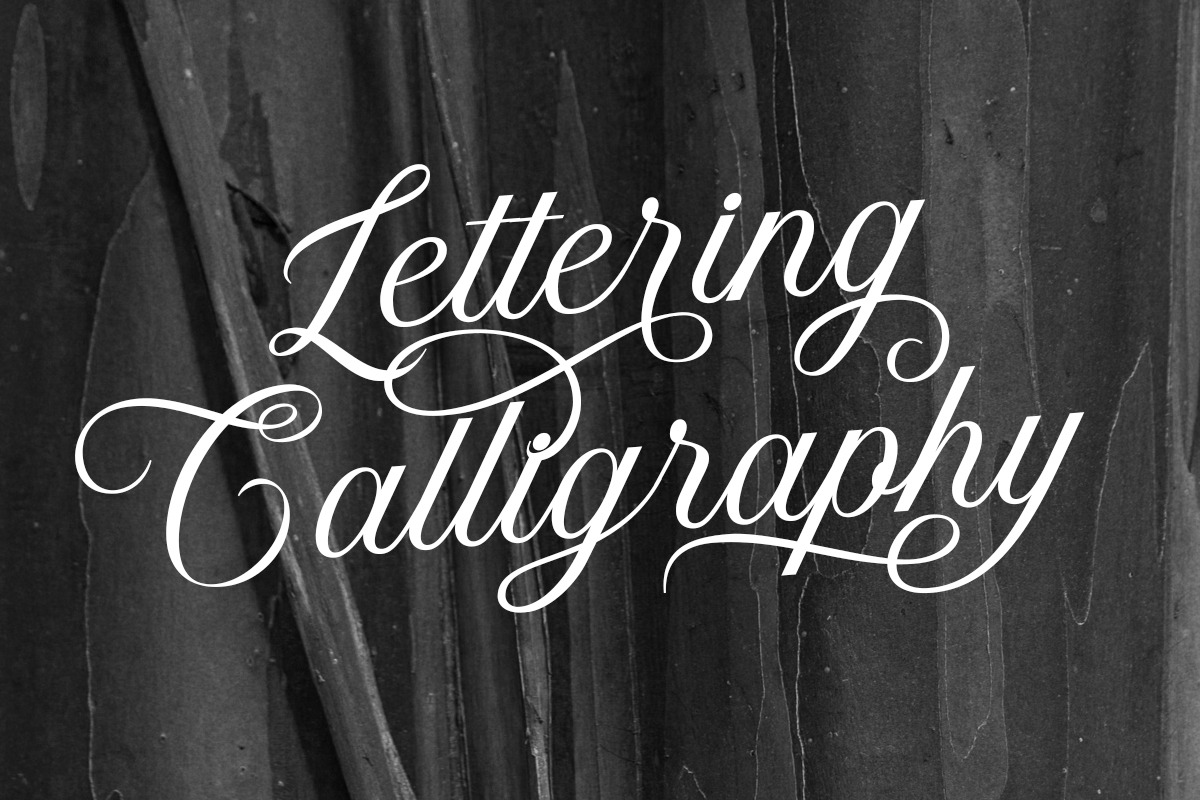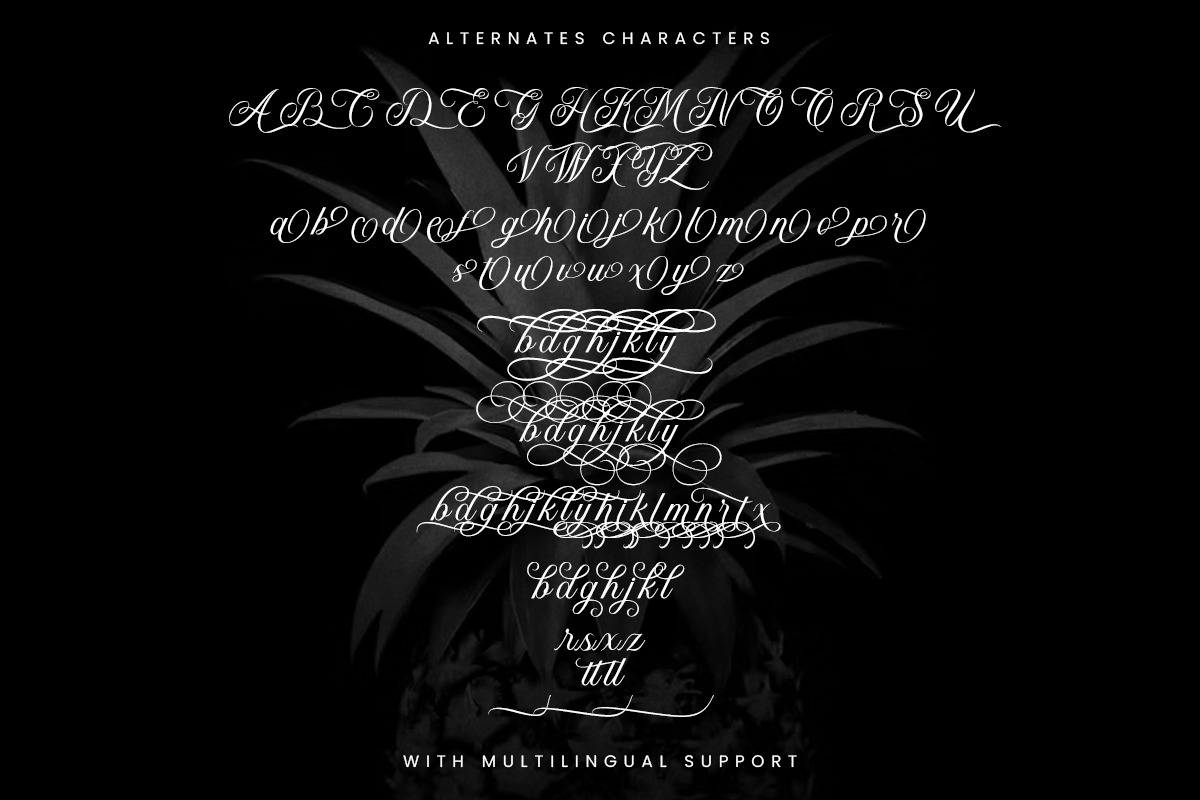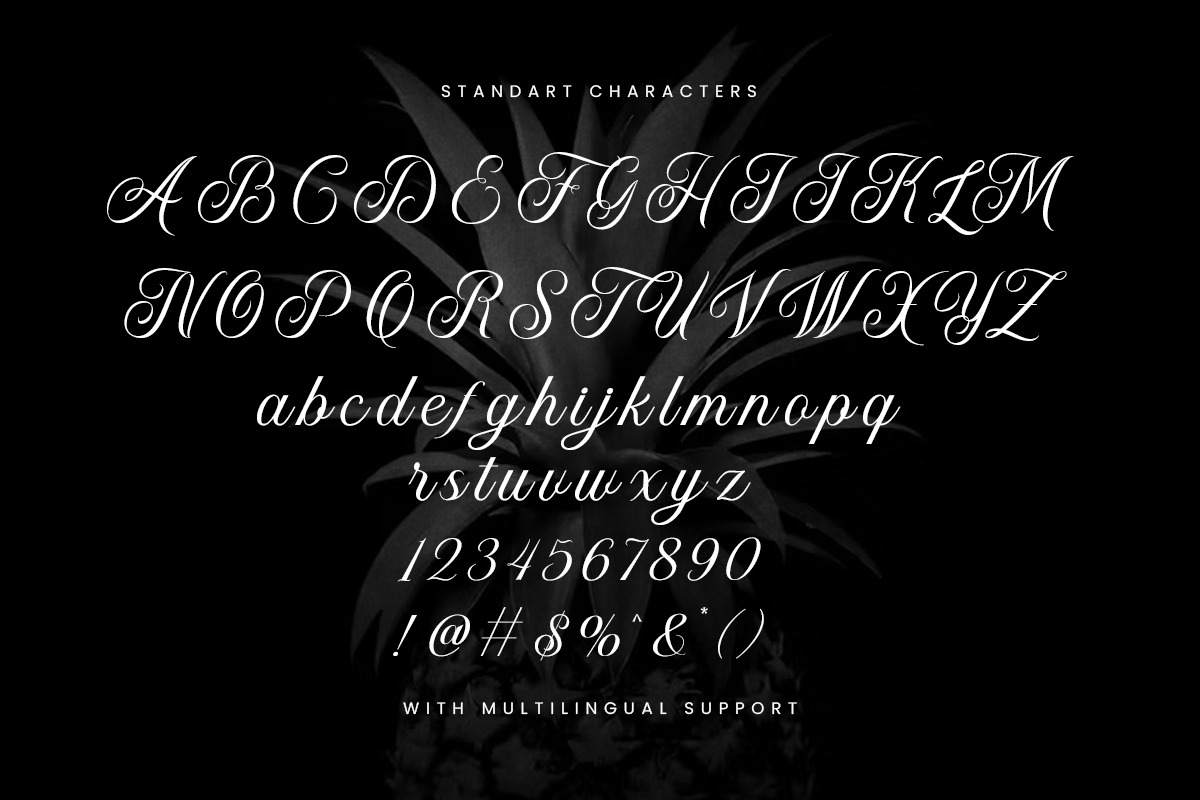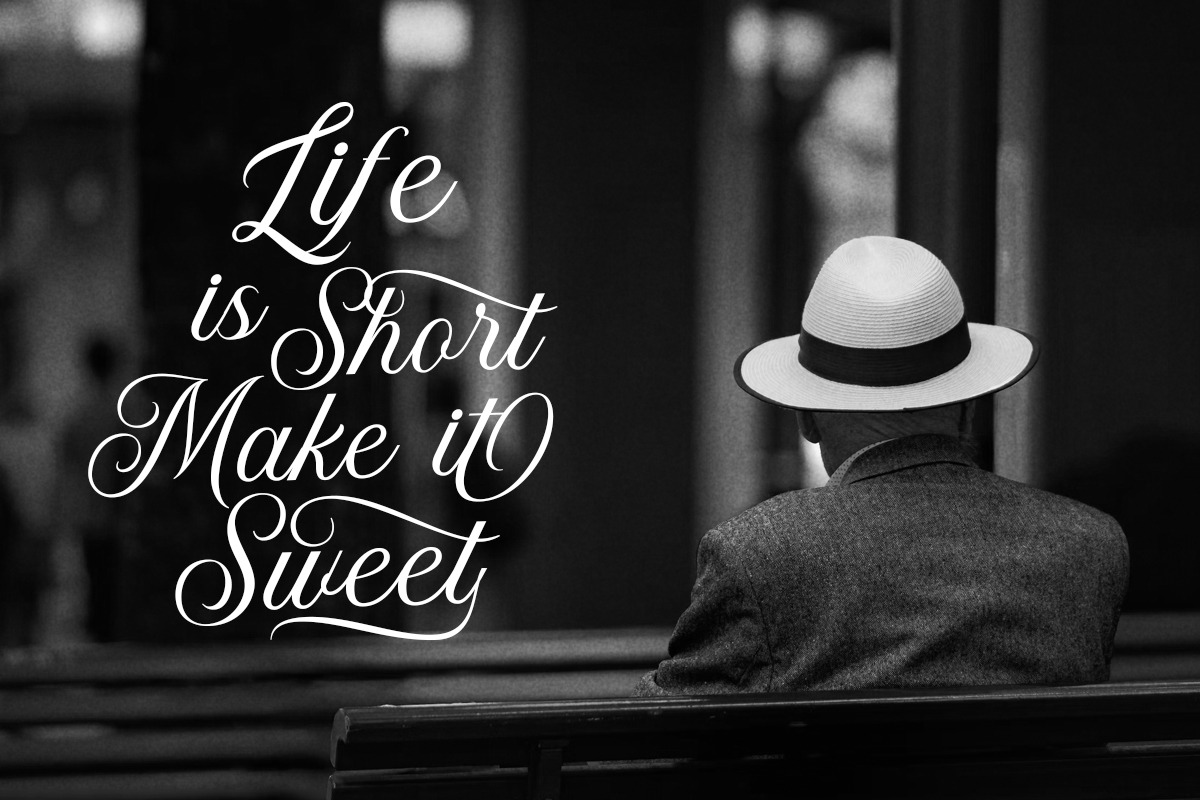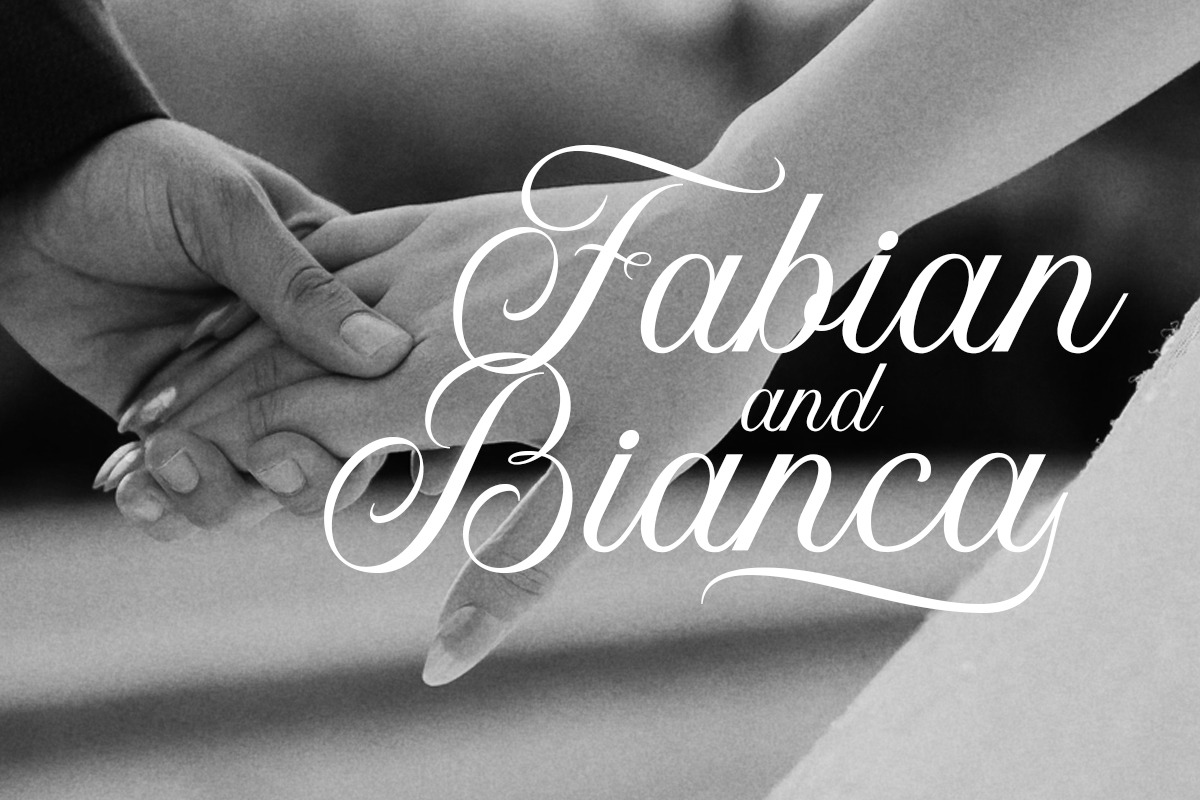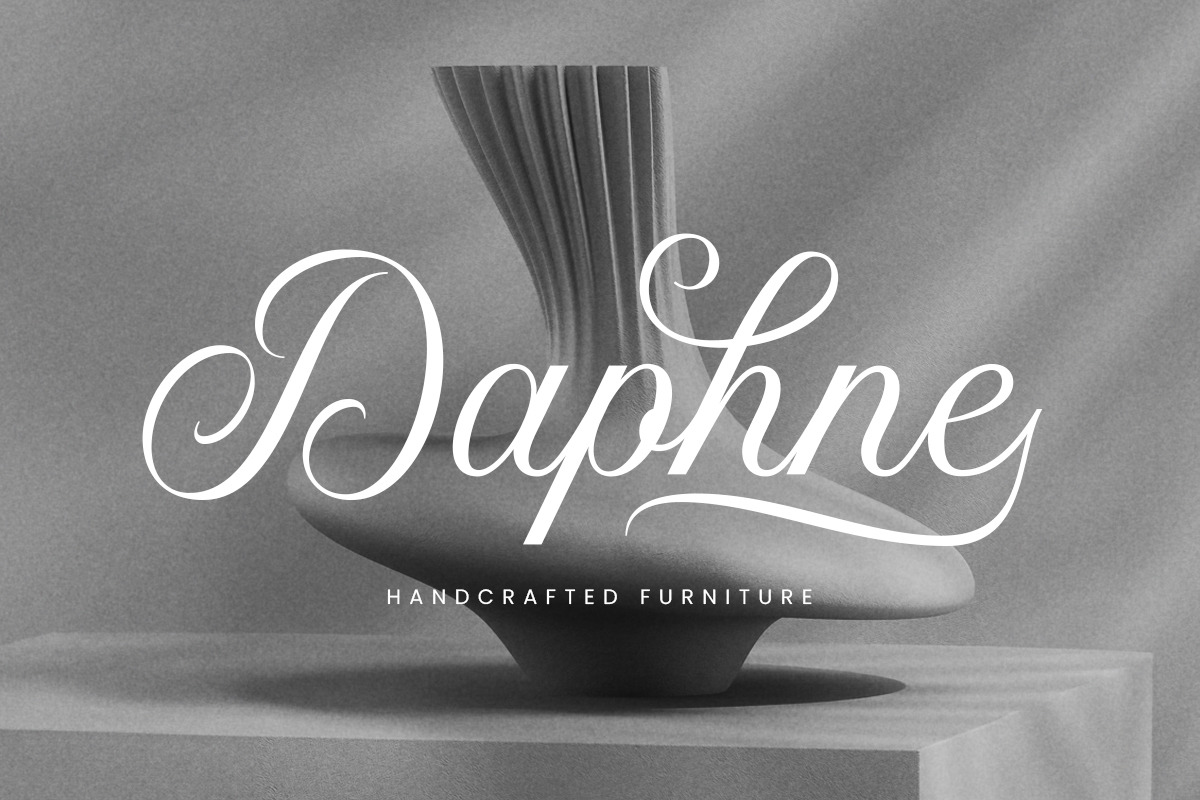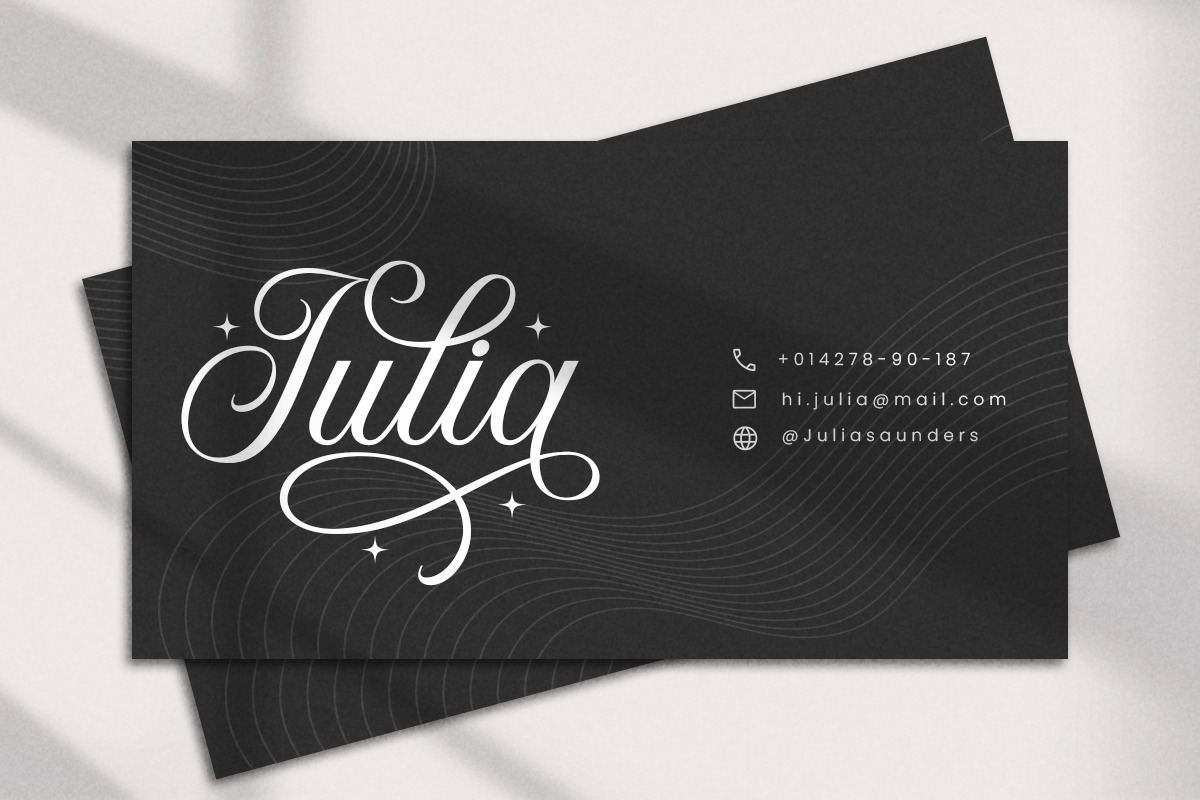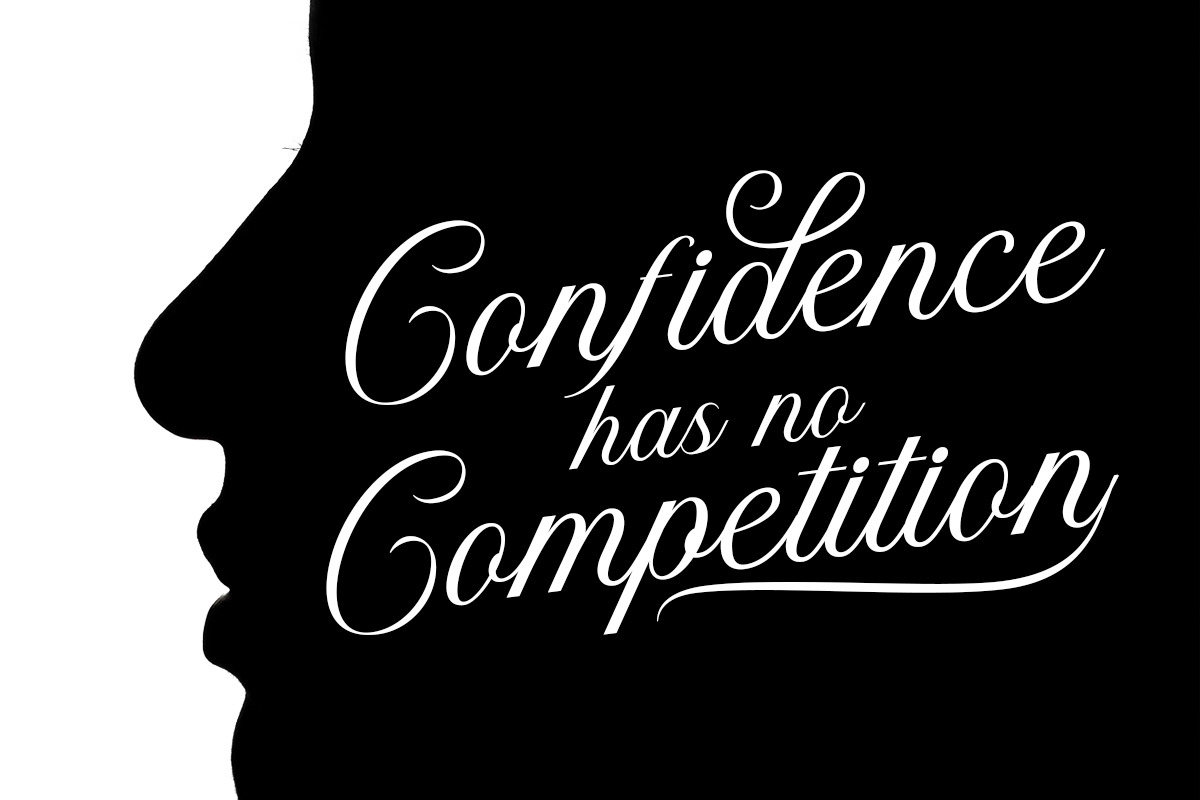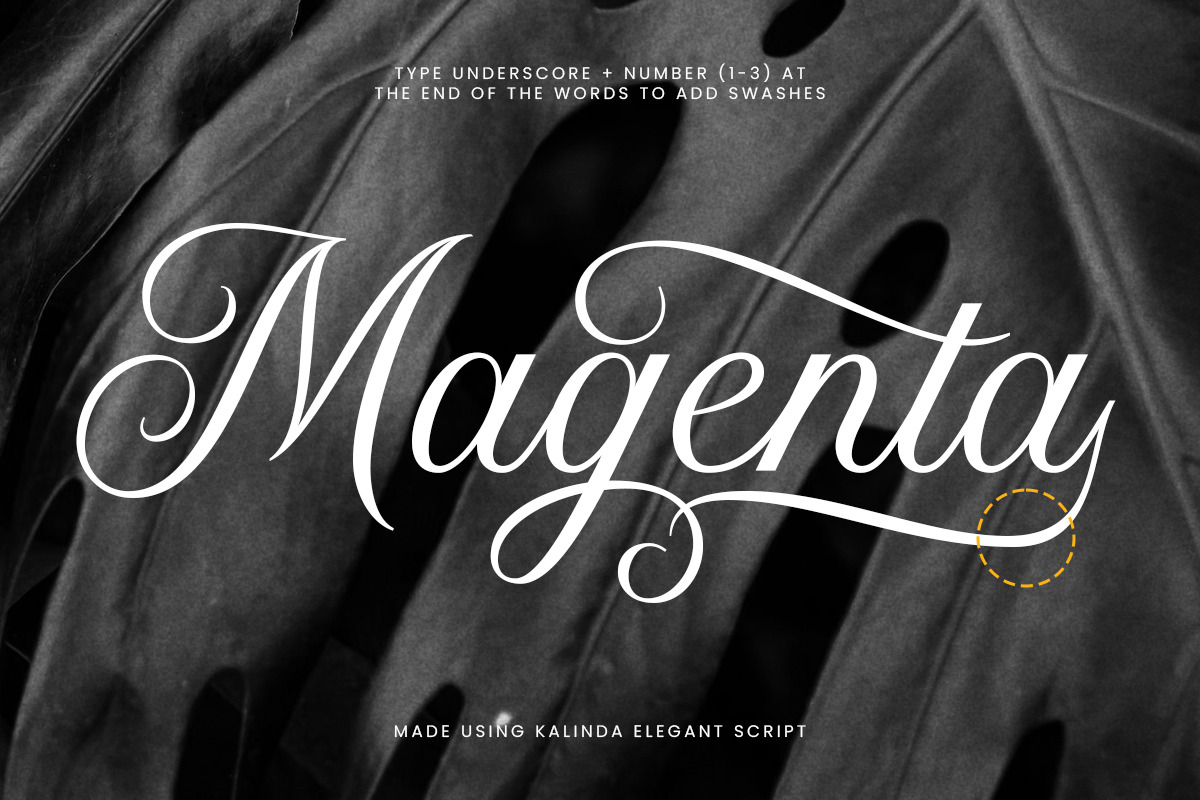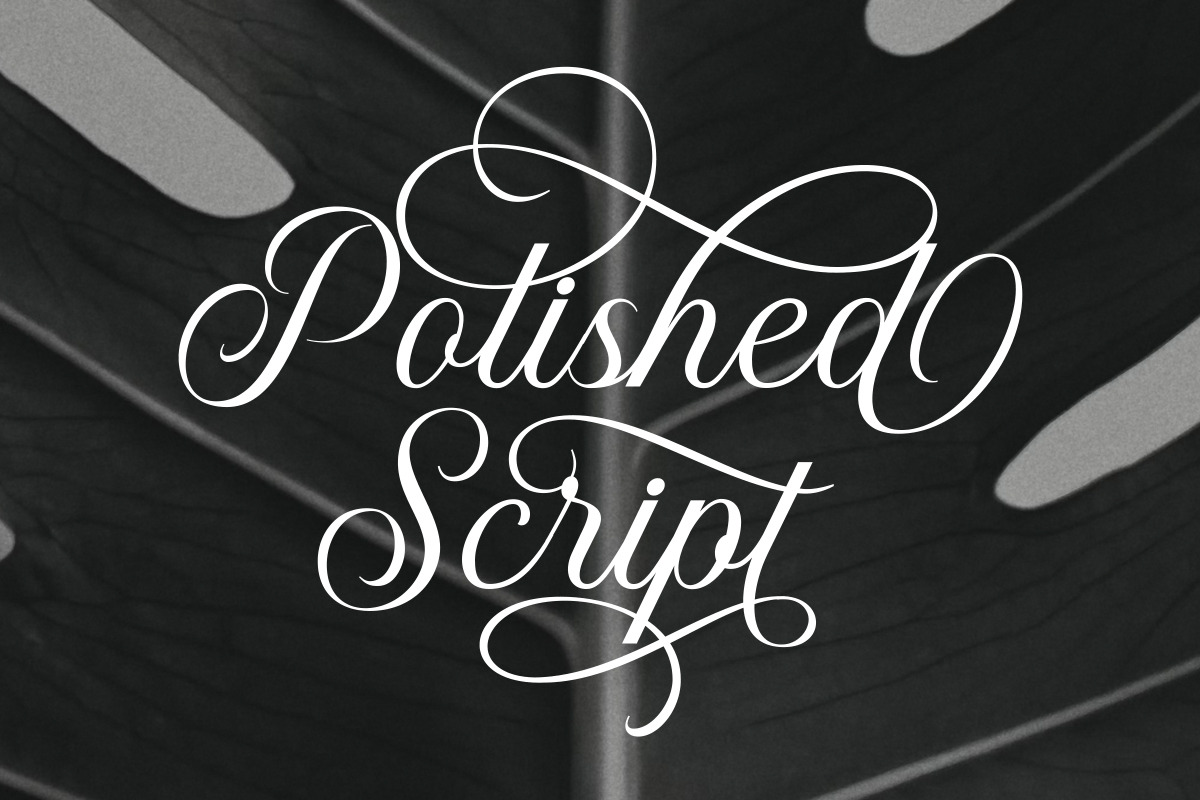
Kalinda
Discover the allure of Kalinda Elegant Script Font. Unlock a world of exquisite design possibilities. Immerse yourself in its elegance and luxurious vibe perfect, for elevating your design projects to heights. Whether you're crafting enchanting wedding invitations that ooze sophistication or adding a touch of opulence to branding, packaging, posters or signage Kalinda is your go to choice. With its extensive range of OpenType features, like ligatures and swashes this crafted script font empowers you to infuse your designs with timeless beauty effortlessly. Embrace the artistry of Kalindas styled characters. Watch as your creative vision comes alive capturing hearts and inspiring minds.